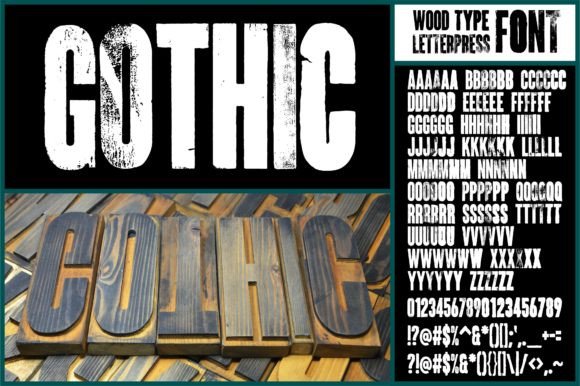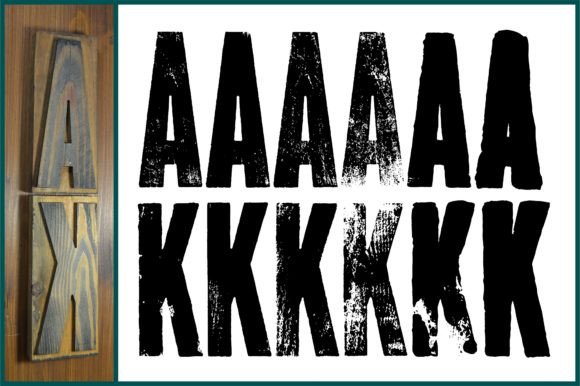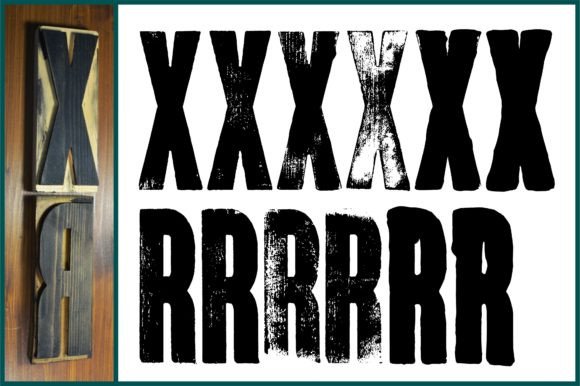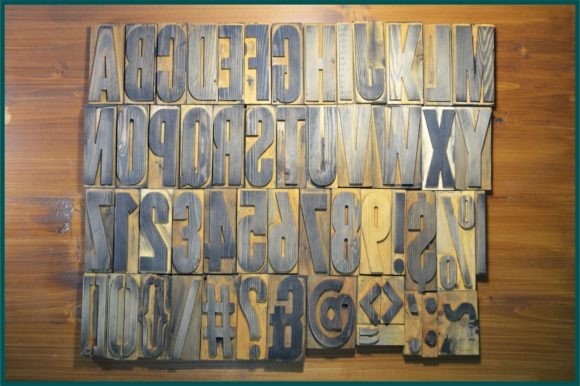
Gothic Font
About the Gothic Font
The Gothic Font offers a perfect balance of form and function for your design needs. How it’s made: Each glyph was carved from wood, pressed, scanned, and digitized.
Typeface made using a letterpress appears tactile and real, as opposed to a digitally created design.
Gothic is a full-cap typeface, that consists of 3 styles – light, medium, and heavy.
Uppercase and lowercase were printed differently. In total, each English alphabet has 6 textured options.
You will not find the same texture pattern reoccurring in the font. All textures were made freshly.
Gothic Font’s bold, textured nature makes it ideal for headlines, short impactful statements, and branding applications requiring a strong, authoritative voice. It excels in logo design, posters, and packaging where its unique tactile quality adds visual interest. However, its full-cap design and textured glyphs make it unsuitable for body text or UI elements where readability is paramount. Avoid using it for long paragraphs or content requiring easy scanning.
Pairing Gothic Font effectively depends on the desired emphasis. For a sophisticated contrast, consider pairing it with a clean sans-serif like Helvetica or a classic serif such as Garamond. To enhance its bold character, a geometric sans-serif like Futura can create a modern, powerful combination. For a more playful feel, a handwritten script font could offer interesting visual juxtaposition.
The font’s overall personality is best described as bold and assertive, conveying a sense of history and craftsmanship. Its strong visual presence makes it a perfect choice for projects that aim to communicate strength, tradition, or a handmade aesthetic.
Gothic Font Example